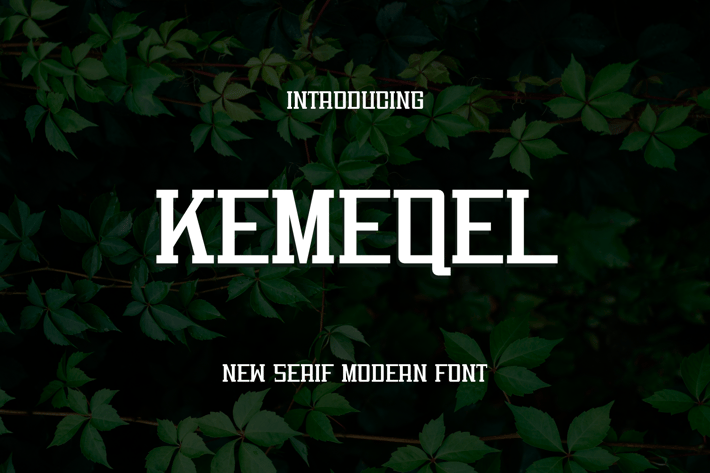
Kemeqel Font
Introducing our new product Kemeqel Font
Very suitable for flyer, posters, novel, letterhead, or any design requirements that you want to be awesome. ____________________________________________________________________________________________